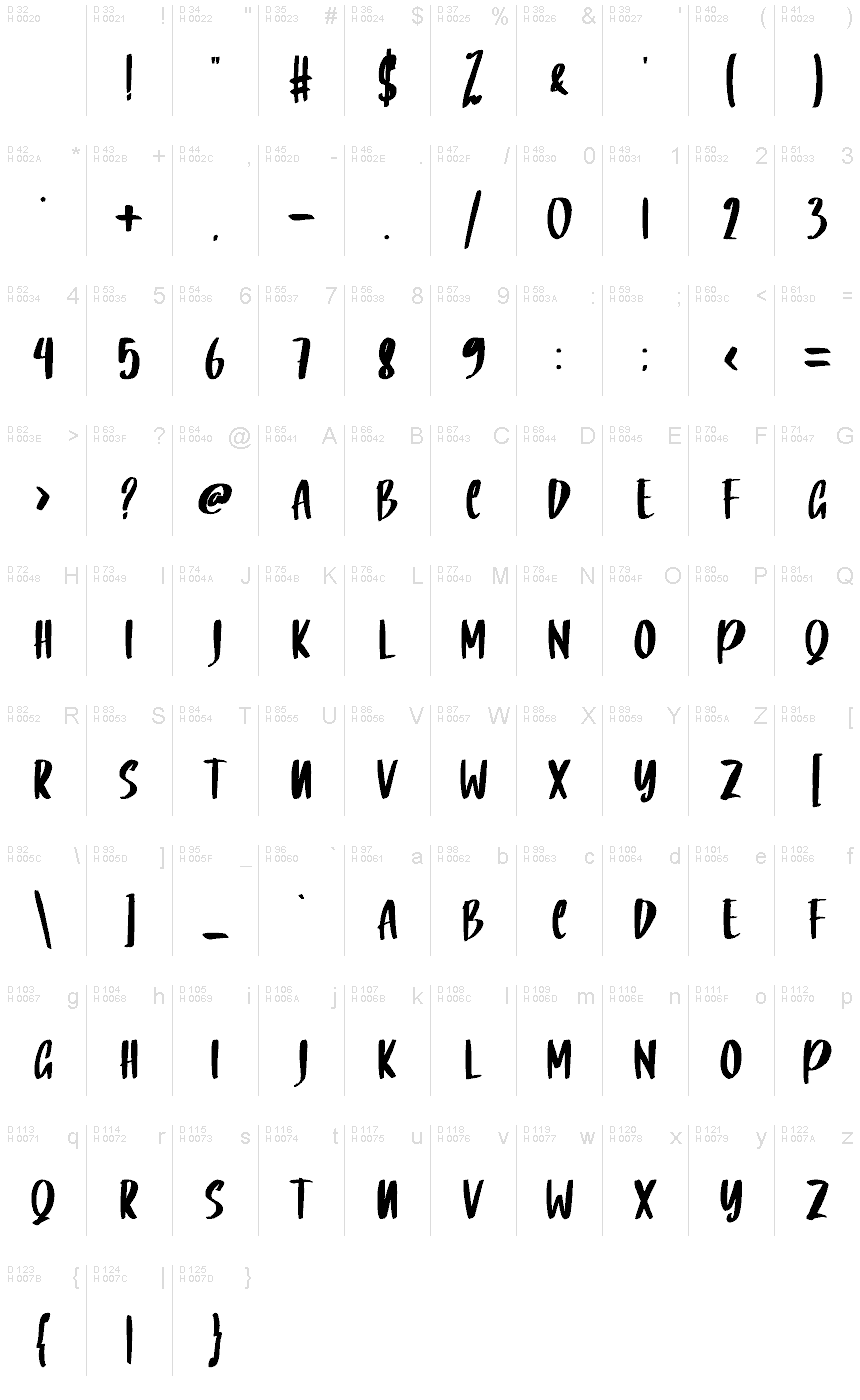
Yonkya
Yonkya font from Skilller Studio is a free brush font with bold weight and condensed width. The expressive brush style gives it an energetic, casual, and friendly appearance. Yonkya maintains high legibility in both large headlines and smaller body text.